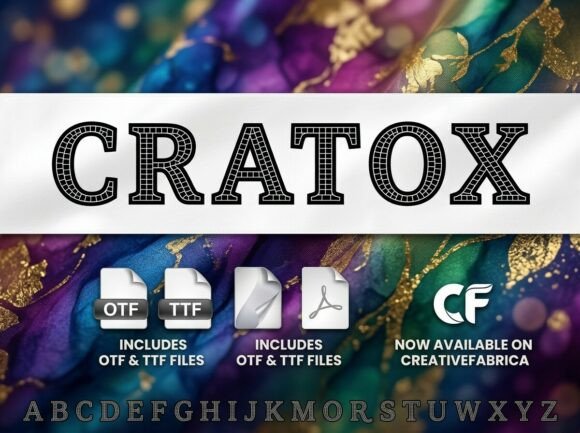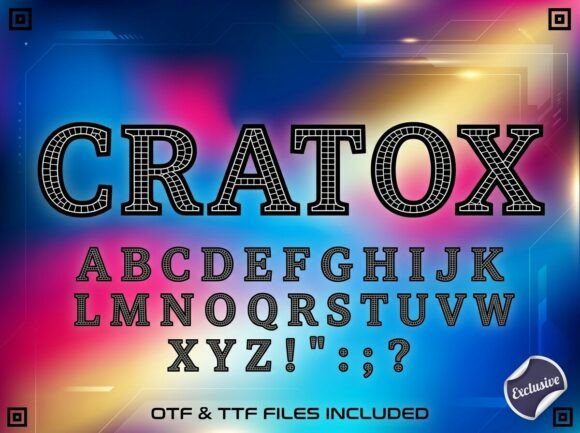
Step into Digital Nostalgia with Cratox Font
In the realm of digital typography, few fonts manage to evoke a sense of nostalgia while still feeling modern and fresh. Cratox, a hypnotic display typeface, is one such font that successfully captures the essence of retro-tech aesthetics while boasting a bold and powerful presence. With its unique blend of pixelated charm and structural weight, Cratox has become the go-to choice for designers looking to infuse their projects with a dose of digital nostalgia.
The Birth of Cratox: A Retro-Tech Revival
Cratox’s design is deeply rooted in the visual language of vintage LED scoreboards and early computer monitors. The font features bold, hollow slab-serif letterforms that are uniquely characterized by a rhythmic, hand-drawn grid texture. This distinctive texture gives Cratox a pixelated look that is reminiscent of the early days of digital technology. However, unlike other fonts that may rely on simplistic pixelation, Cratox’s design strikes a perfect balance between retro charm and modern sophistication.
Key Features of Cratox Font
- Bold and Hollow Slab-Serif Letterforms: Cratox’s letterforms are not only bold and eye-catching but also hollow, which adds to the font’s retro-tech appeal.
- Rhythmic, Hand-Drawn Grid Texture: The font’s texture is meticulously crafted to mimic the look of vintage LED scoreboards and early computer monitors, giving it a unique and recognizable appearance.
- Heavy Structural Weight: Cratox’s structural weight makes it highly legible, even at larger sizes, ensuring that it can be used effectively across various mediums.
- Retro-Tech Personality: Cratox embodies the spirit of retro-tech, making it an ideal choice for projects that require a nostalgic touch.
Use Cases for Cratox Font
Cratox’s versatility and distinctive style make it suitable for a wide range of design applications. Here are some of the premier use cases for this exceptional font:
- Independent Gaming Branding: Cratox’s bold and pixelated aesthetic makes it a natural fit for independent gaming brands looking to establish a strong visual identity.
- Synthwave Event Posters: The font’s retro-tech personality and bold appearance make it an excellent choice for synthwave event posters and other related design projects.
- Tech-Focused Editorial Layouts: Cratox can add a touch of digital nostalgia to tech-focused editorial layouts, making them more engaging and visually appealing.
- High-Impact Social Media Headers: The font’s heavy structural weight and retro-tech charm make it perfect for creating high-impact social media headers that demand attention.
Why Choose Cratox Font?
With so many fonts available, why should designers and crafters choose Cratox? The answer lies in its unique ability to blend nostalgia with modernity. Cratox is not just a font; it’s a design statement that can elevate a project from ordinary to extraordinary. Its distinctive style and versatility make it an invaluable addition to any designer’s toolkit.
Cratox font is more than just a typeface; it’s a gateway to digital nostalgia with a modern twist. Its bold, hollow slab-serif letterforms, rhythmic grid texture, and heavy structural weight make it a premier choice for designers looking to infuse their projects with a retro-tech aesthetic. Whether you’re working on independent gaming branding, synthwave event posters, tech-focused editorial layouts, or high-impact social media headers, Cratox is the perfect choice. Step into the world of digital nostalgia with Cratox and discover a font that is as powerful as it is nostalgic.